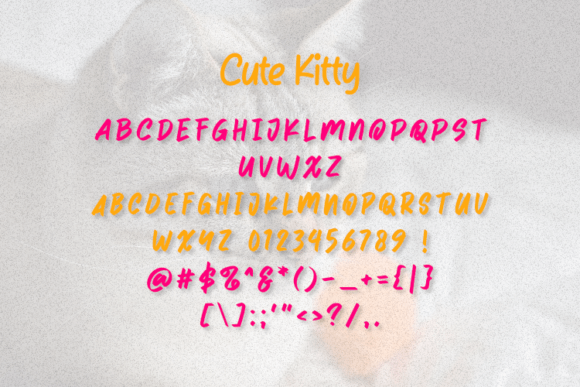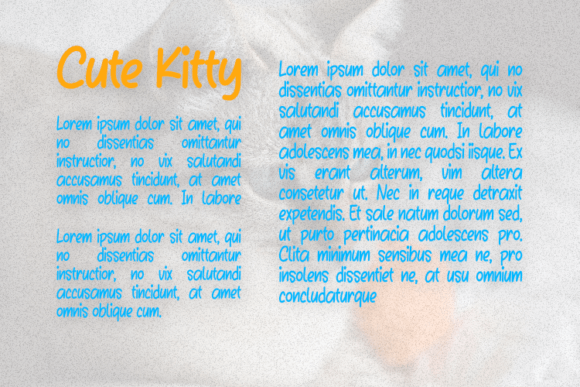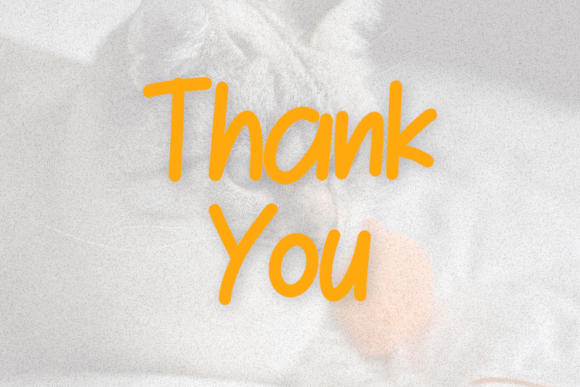
Have you ever been brainstorming a new design idea and suddenly felt a surge of inspiration? Maybe it’s the perfect illustration to complement a quirky quote, or a whimsical logo for a fun brand. Whatever it is, you know that feeling when everything comes together and you can’t wait to bring it to life. That’s exactly what the Cute Kitty Font is here to help you achieve.
Designed to add a touch of playfulness to your designs, Cute Kitty Font is a versatile font that seamlessly integrates with any software, making it a valuable addition to your design toolkit. With its broad compatibility and smooth integration, you can focus on unleashing your creativity without any technical hassles. Whether you’re a seasoned designer or just starting out, the Cute Kitty Font is the perfect companion to help you bring your most charming and fun ideas to life.
Cute Kitty Font Key Features
- Unique Characteristics: Cute Kitty Font features a playful, cursive script with a cat theme, making it perfect for designs that require a touch of whimsy and fun.
Cute Kitty Font Review
At first glance, the Cute Kitty Font seems like a charming addition to any design project. ✨ The font’s playful, hand-drawn style immediately captures attention and adds a touch of whimsy. The font is well-suited for projects targeting a younger audience or those that require a fun, lighthearted tone.
- ✨ The font’s uniqueness is its strongest selling point. It stands out in a crowded market and can help designers differentiate their work.
- ✨ The font is highly customizable, allowing designers to adjust the weight, spacing, and color to suit their needs.
- ✨ The font includes a range of punctuation marks and symbols, ensuring that designers have everything they need to create visually appealing compositions.
However, the Cute Kitty Font is not without its limitations. ⚠️ The font’s irregularities can make it difficult to read at larger sizes, and the lack of a bold weight can limit its use in certain contexts.
Overall, I would recommend the Cute Kitty Font for projects that require a playful, whimsical feel. While it may not be suitable for all design applications, its unique charm and high level of customization make it a valuable addition to any designer’s toolkit.
The Cute Kitty Font is perfect for:
- Animal-themed merchandise, such as t-shirts and mugs.
- Whimsical greeting cards and gift tags.